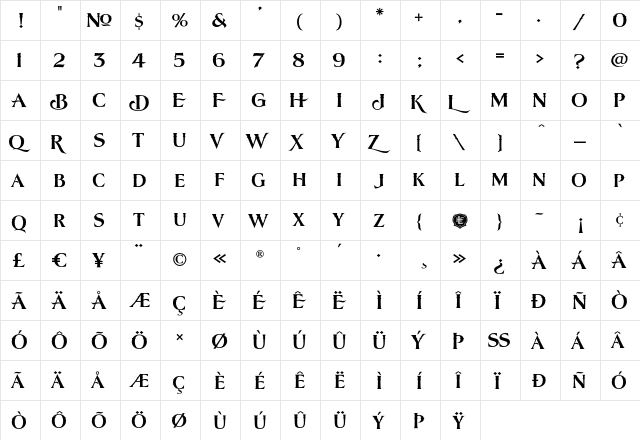
LHF Lakeside Country 2 Regular
| Foundry | Dave Correll for Letterhead Fonts |
| Designer | Dave Correll |
Design Context for LHF Lakeside Country 2 Typeface
LHF Lakeside Country 2 is a composed and adaptable typeface that performs quietly and consistently across a wide range of design contexts.